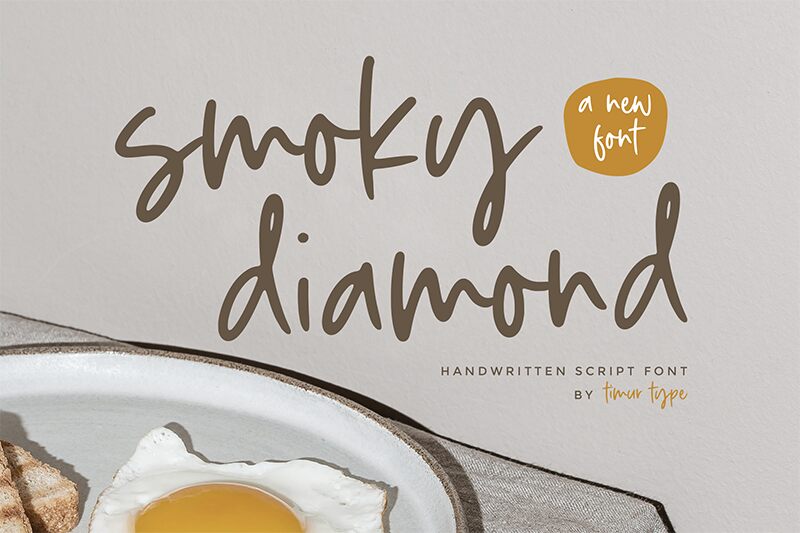
Smoky Diamond by Timur Type is a casual handwritten free font that comes with a relaxed appearance. Inspiring writers and readers with openness, this font is a light artistic experience that causes a euphoric and excited feel however it’s used. Smoky Diamond is a modern tool with an expressive style and an approachable display.
Sometimes, you need a bit of inspiration, and with its friendly letters, this font will grab the reader’s attention and hold it, making its way to the front lines of posters, cards, and plenty of other printed projects. Use it for headlines, presentation designs, business cards, and branding designs as well as packaging.
Smoky Diamond Font is a unique and distinctive typeface that adds a touch of edginess and personality to your designs.
Designed with meticulous attention to detail, this font captures the charm and authenticity of handwritten script while infusing it with a hint of sharpness and edge. The sharp tip adds a bold and dynamic element, lending a sense of energy and excitement to your typography.
Perfect for logo design, branding projects, social media graphics, and various print materials, this handwritten script font stands out with its unconventional style. Its sharp tip creates a playful contrast against the smooth and flowing strokes, evoking a sense of spontaneity and modernity.